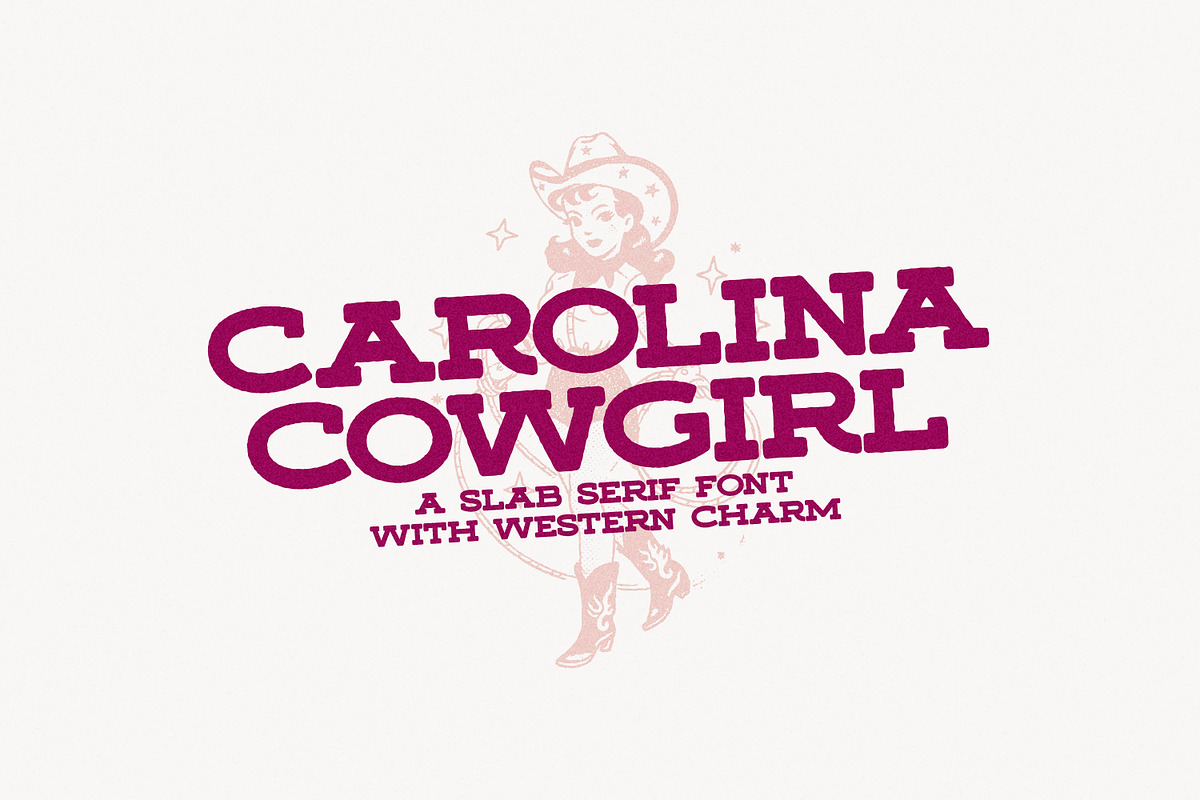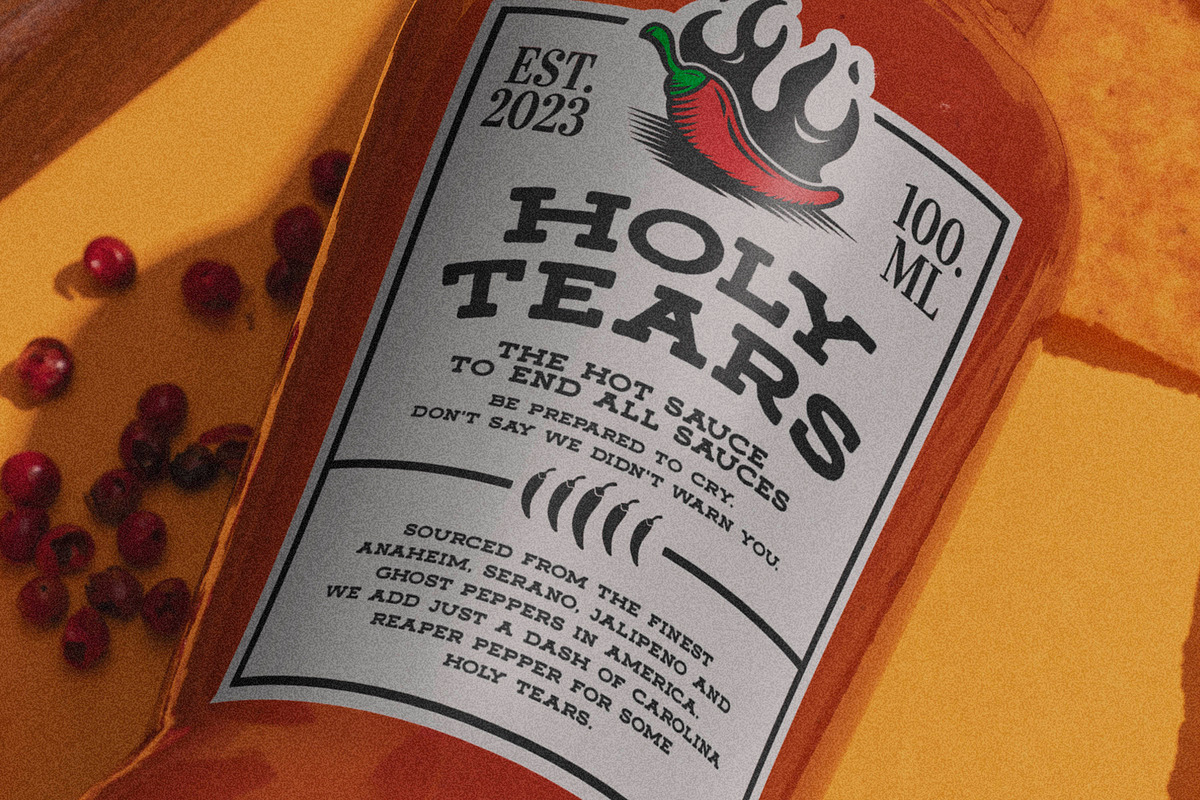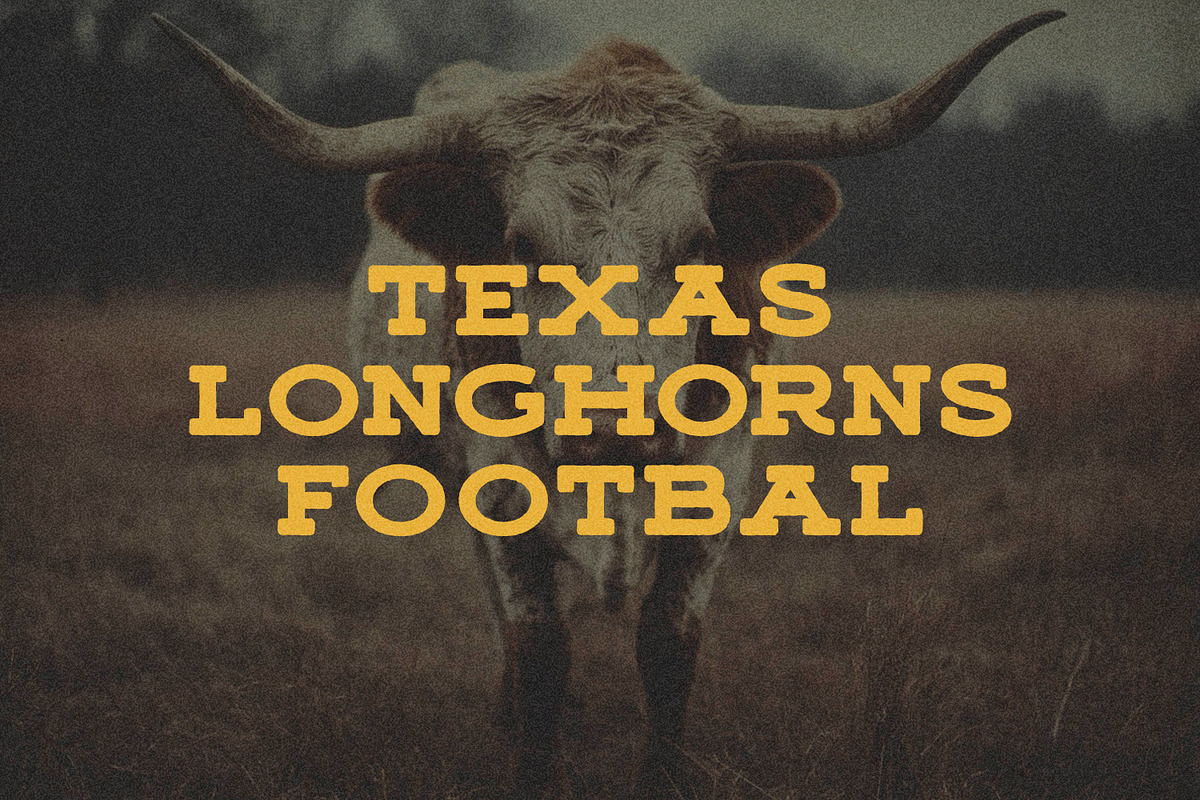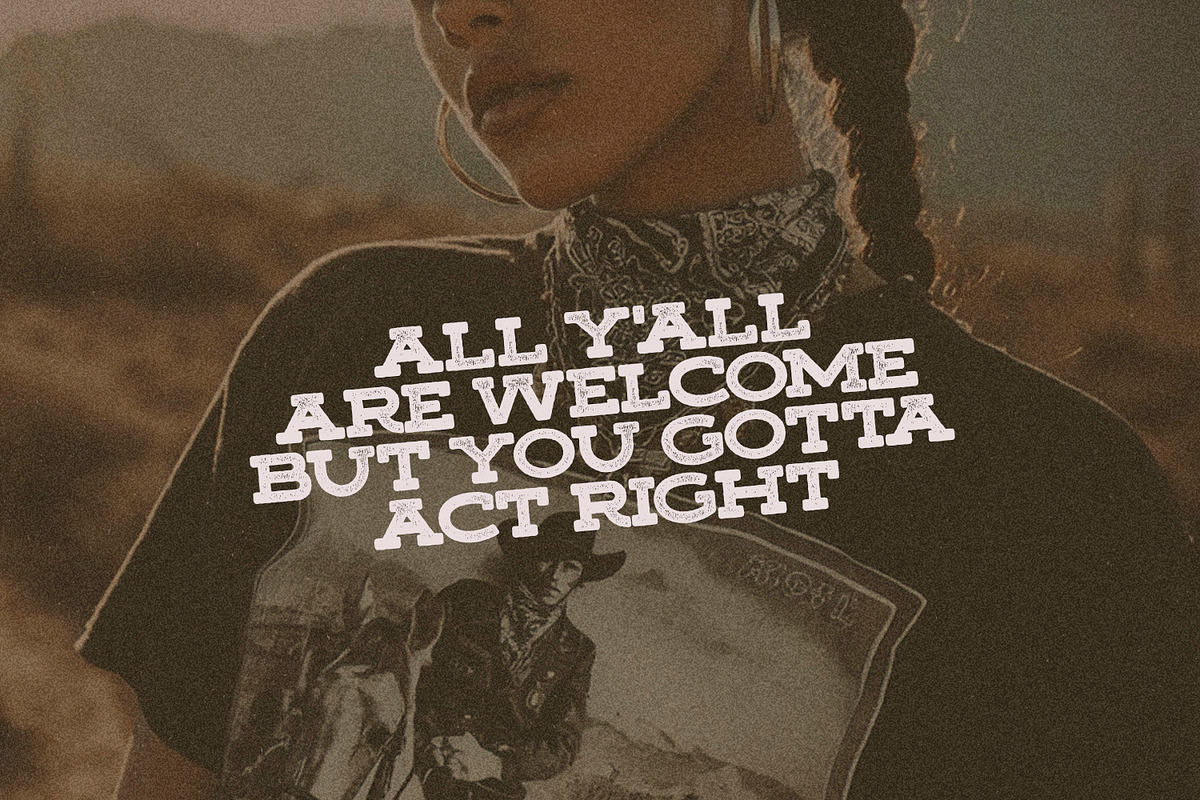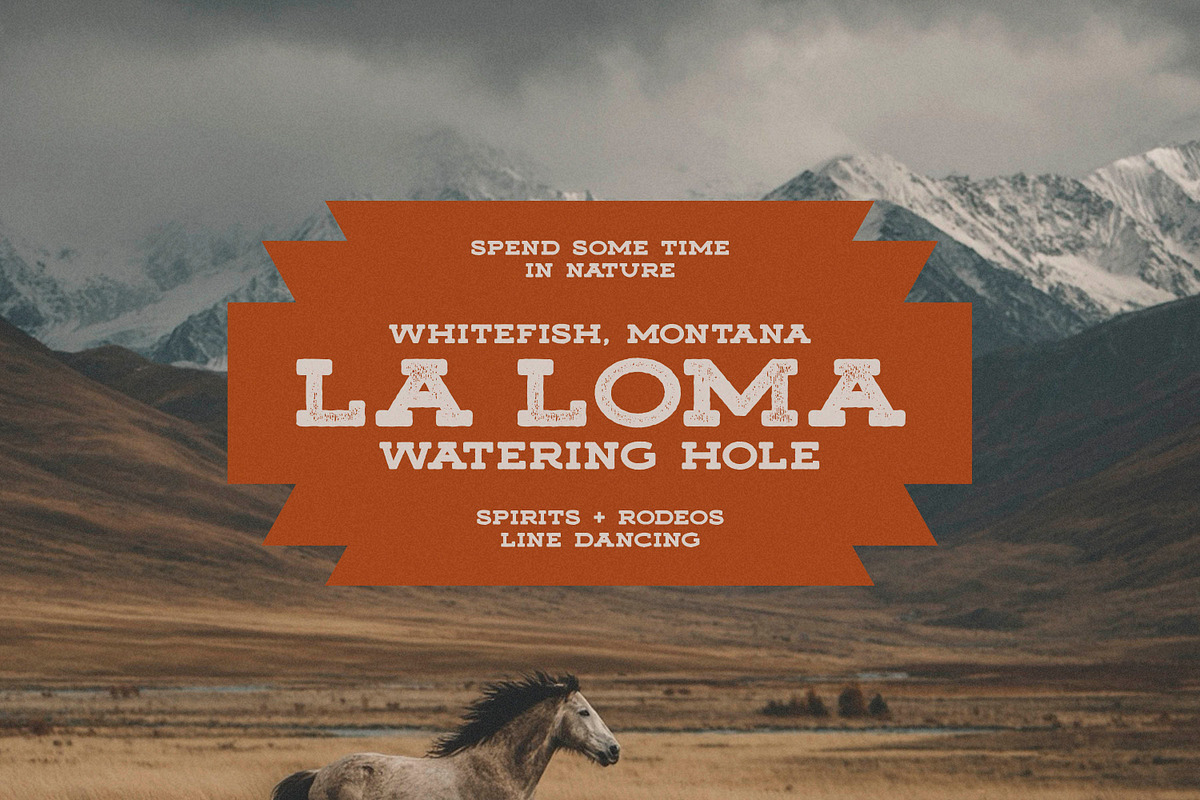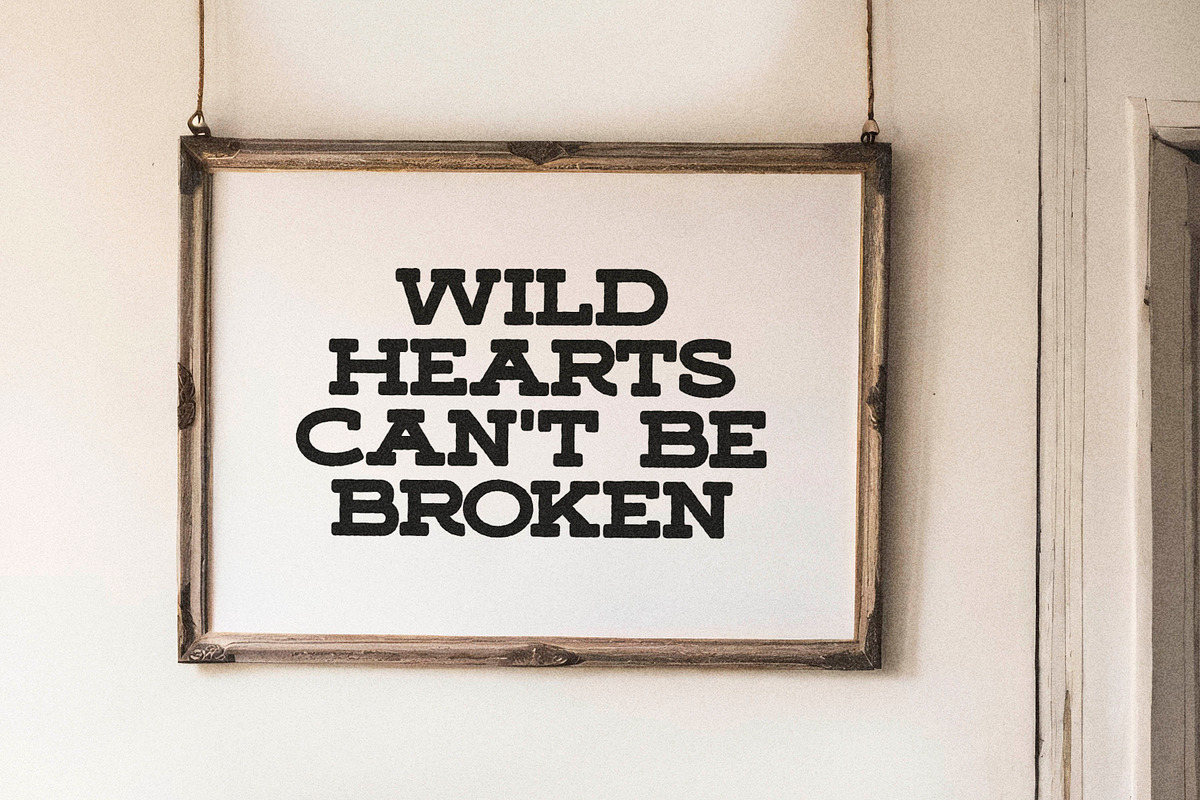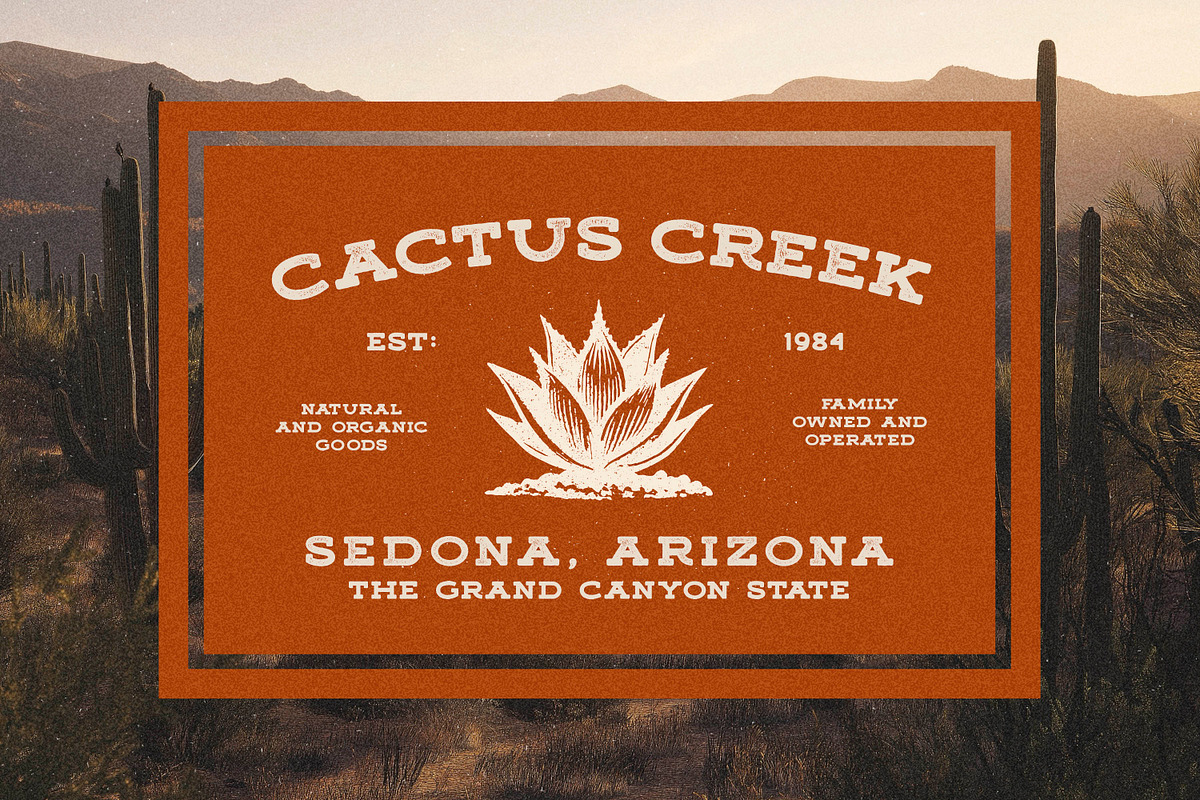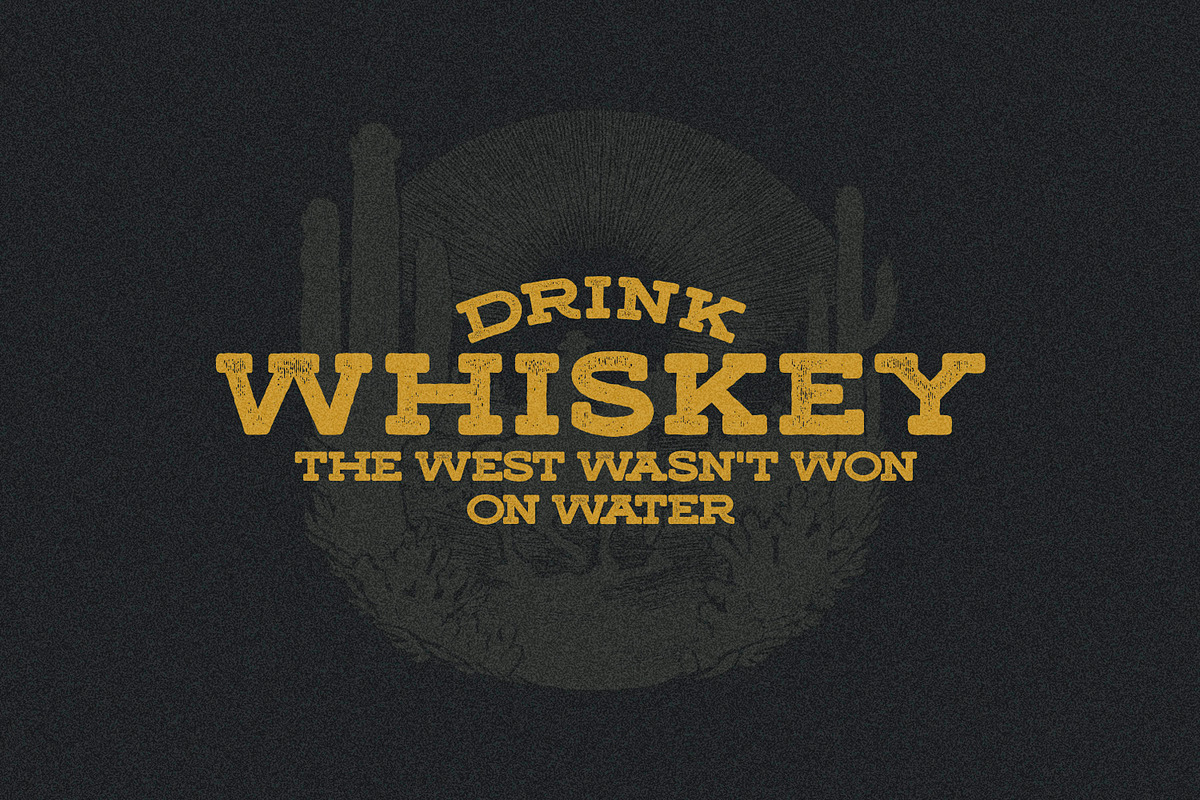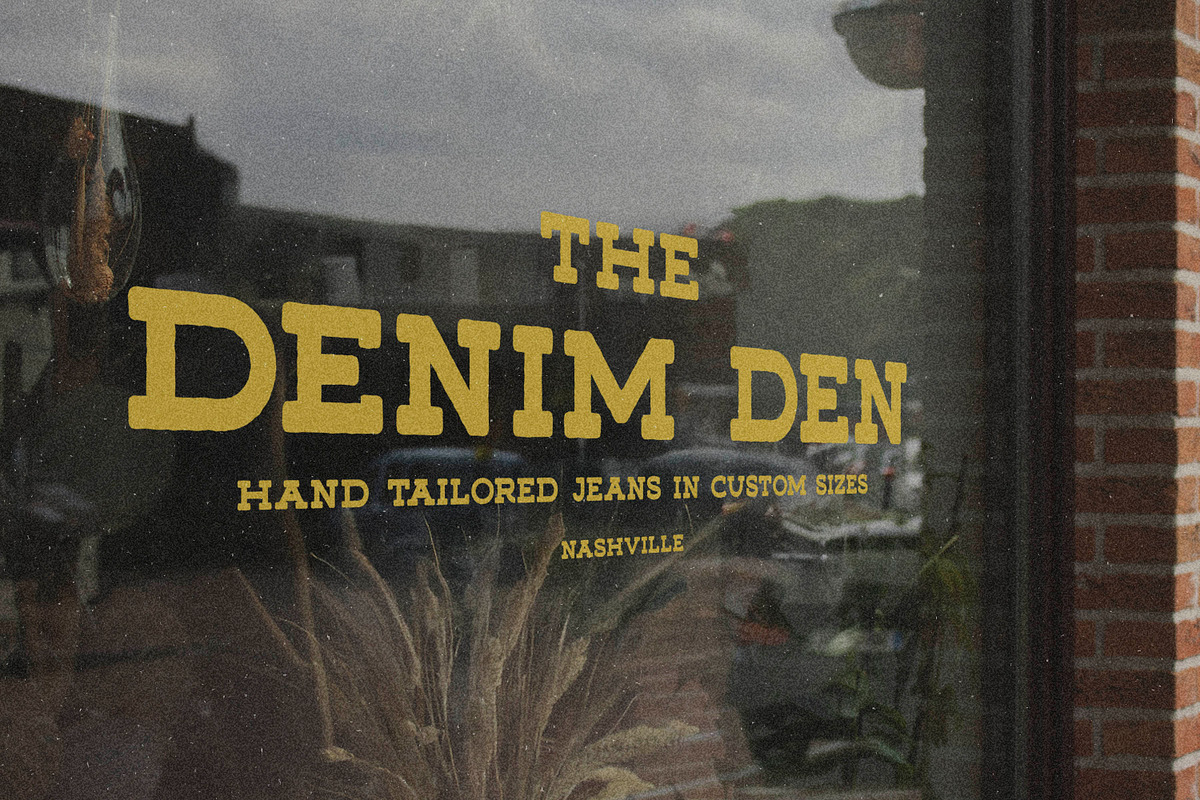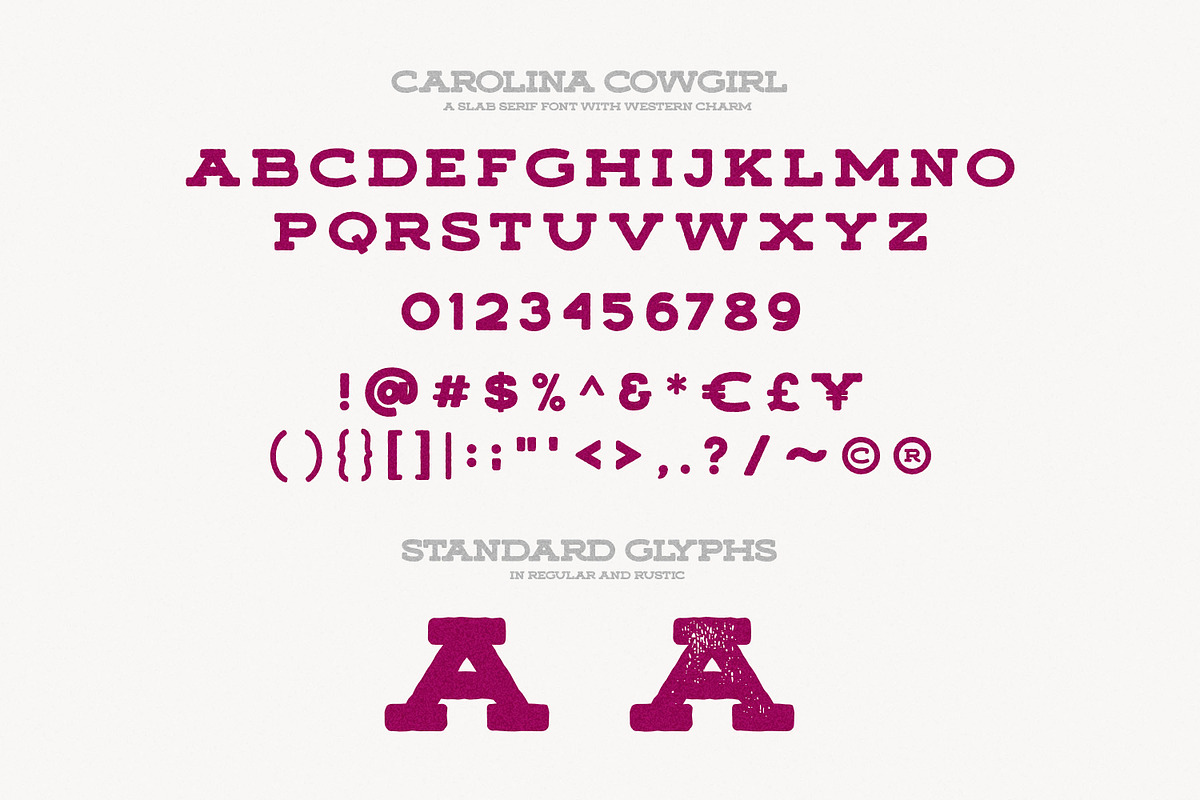
Carolina Cowgirl Slab
Introducing Carolina Cowgirl Slab Serif. This bold, chunky font (in two versions) is loaded with old western charm with a splash of editorial aesthetic. Use on Headlines, apparel, logos, books, signage, products, quotes and more!